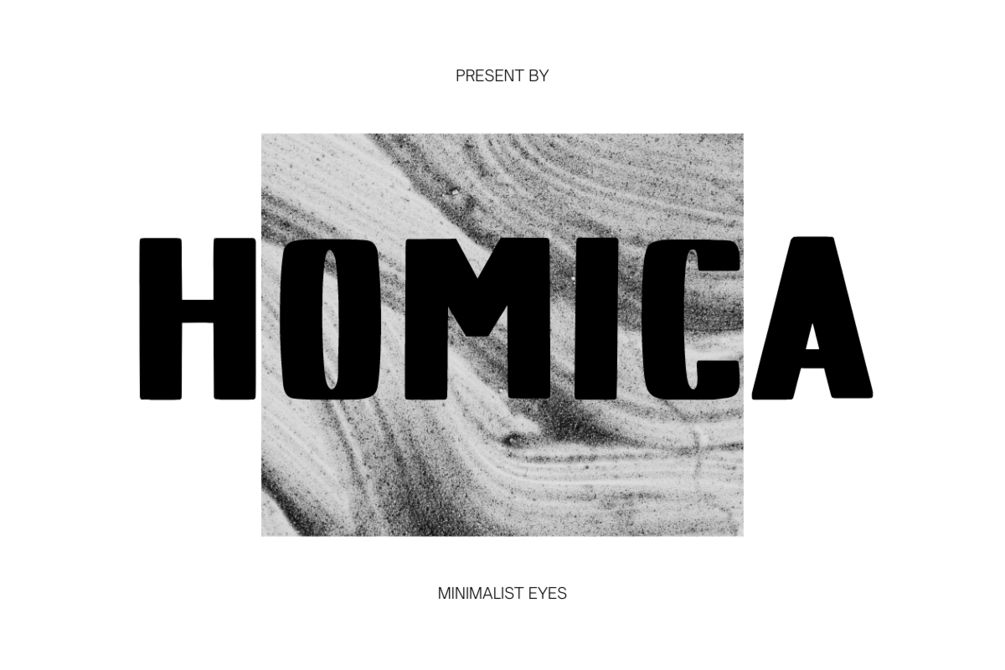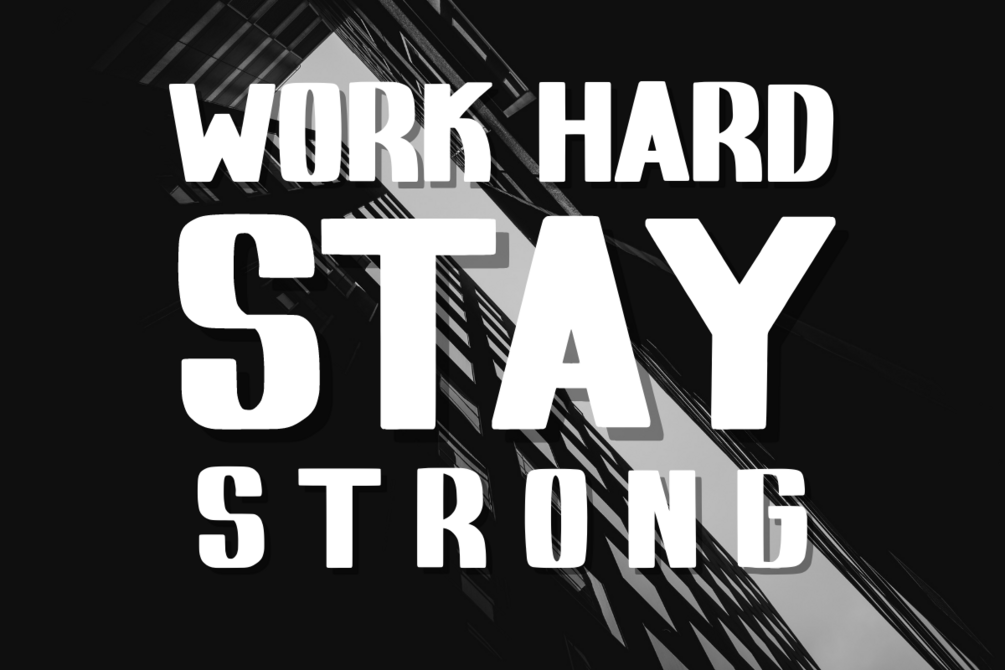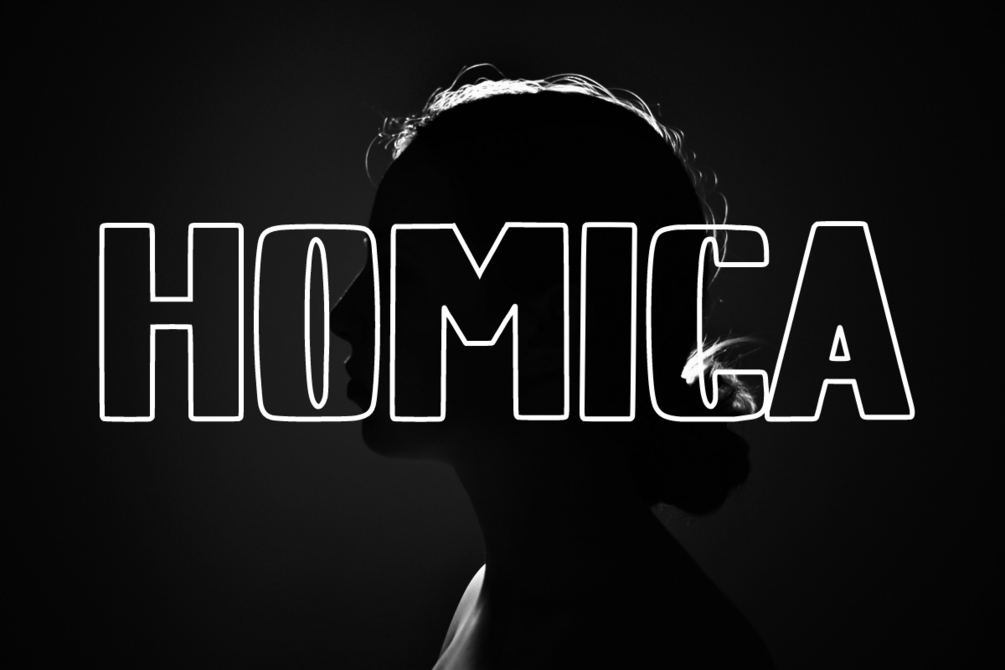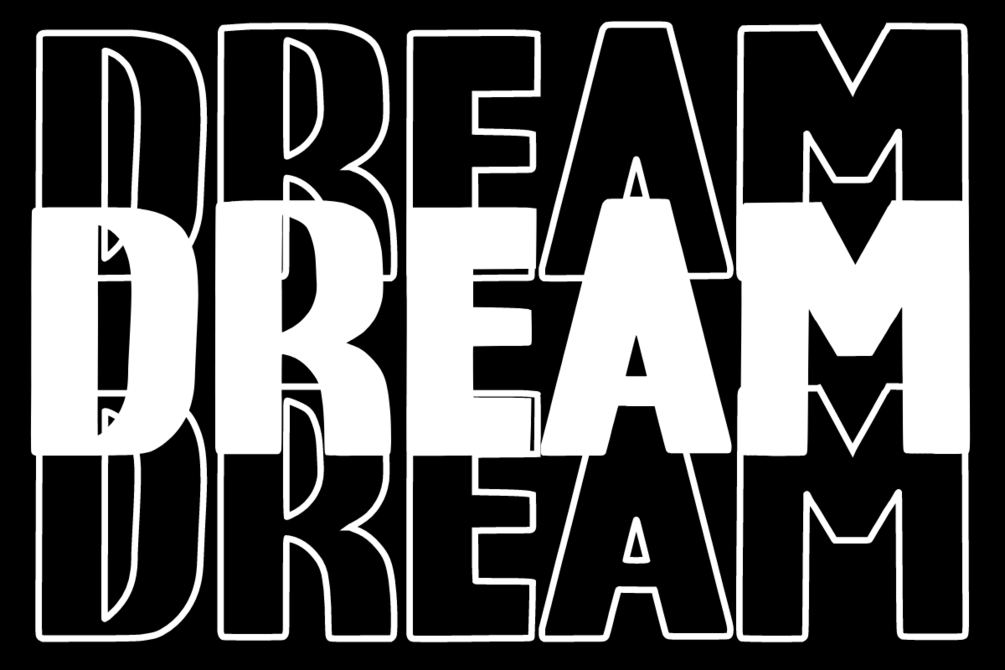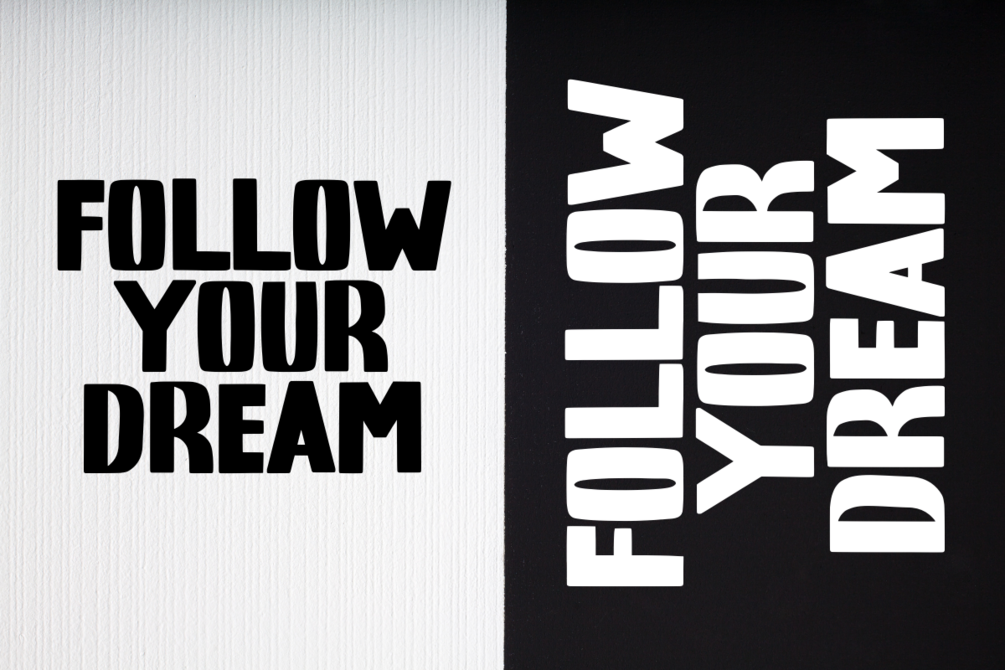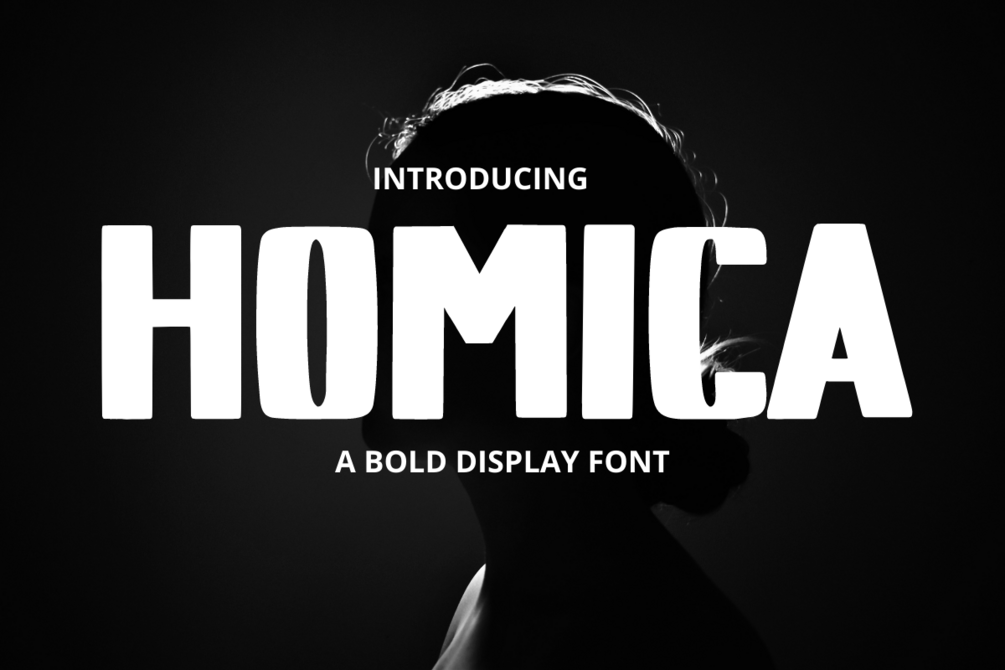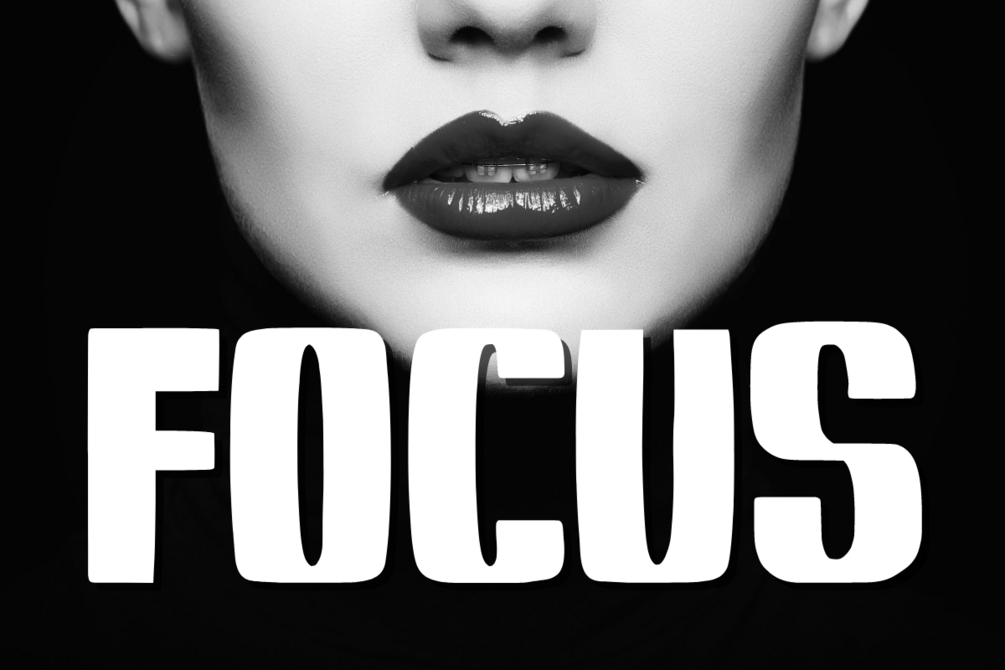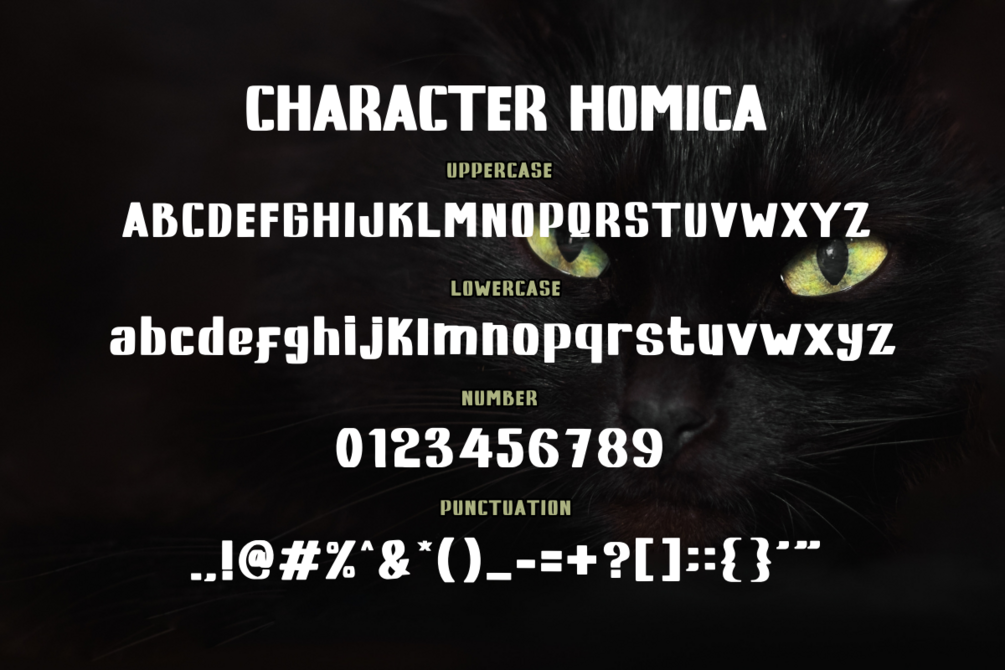
Homica - A Bold Display Font
Homica is a bold display font. Add this bold font to your design and see how it brings it to life! Get inspired by her unique and beautiful style and add it to your favorite designs!